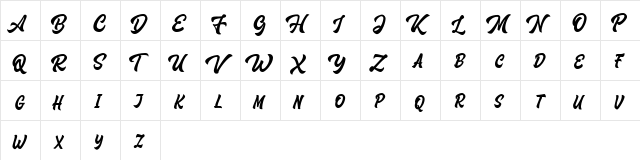
Houstander Allcaps Demo Regular
| Foundry | Typia Nesia Std |
| Designer | Arief Setyo Wahyudi |
Design Context for Houstander Allcaps Demo Typeface
Houstander Allcaps Demo is a composed and adaptable typeface that performs quietly and consistently across a wide range of design contexts.